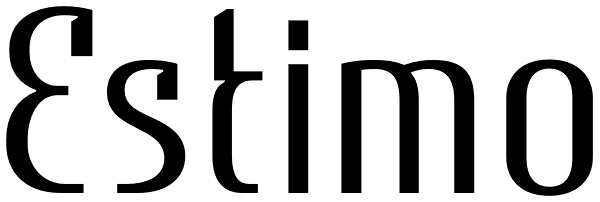
Estimo
Estimo is an unusual, yet elegant type family of three styles in five weights. Originally developed as upper-case-only family, Estimo was inspired by the works of Bulgarian type and graphic designers in 1980’s. It is characterized by its lack of...